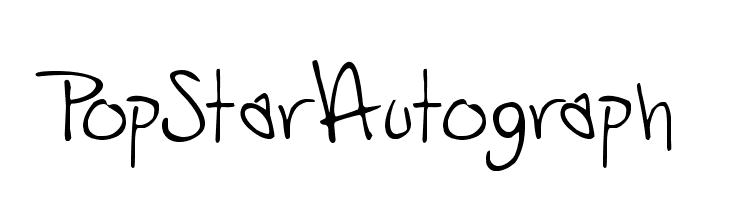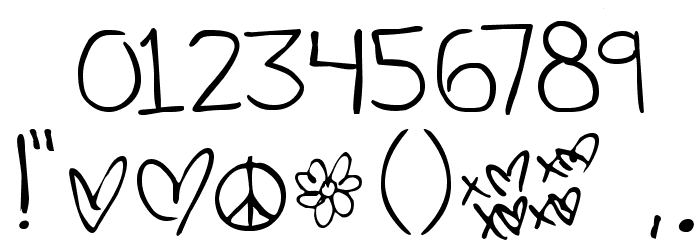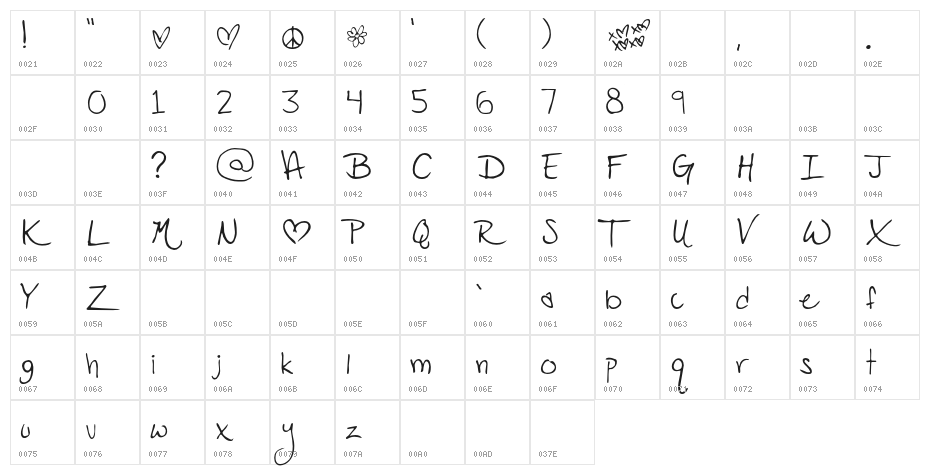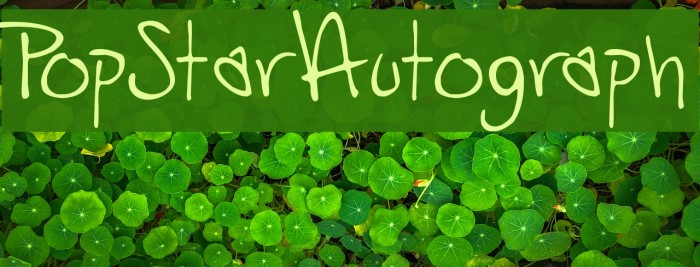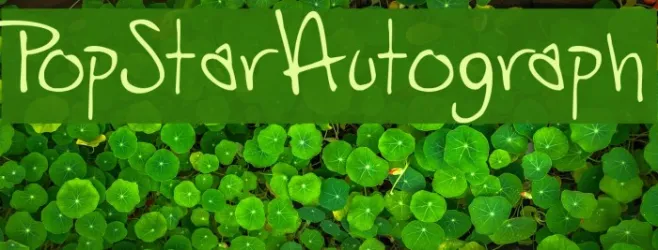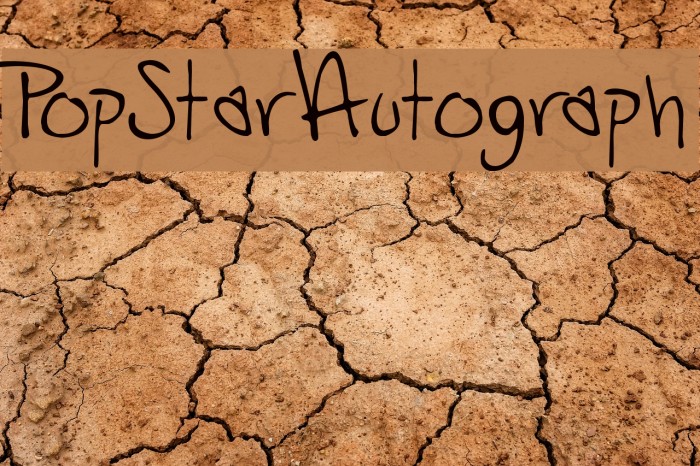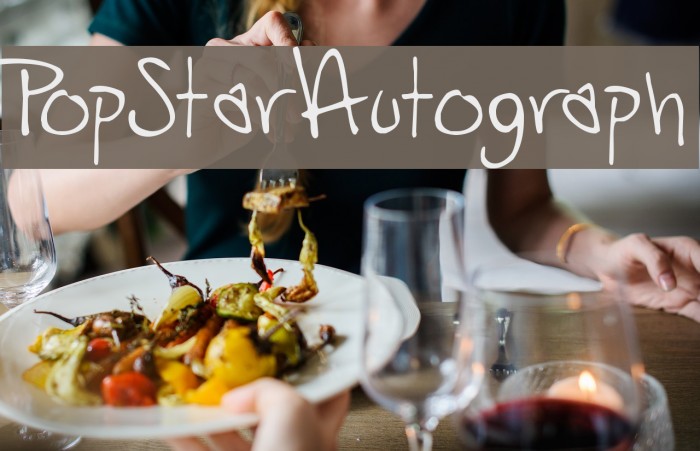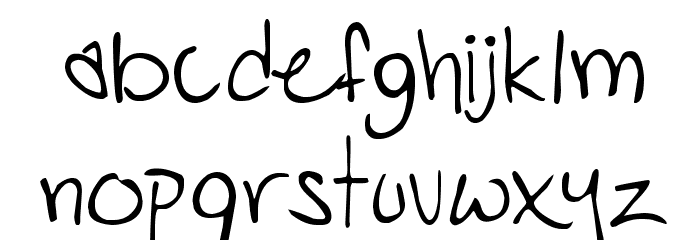
PopStarAutograph Font
PopStarAutograph Description
This playful and energetic font captures the essence of a lively autograph style, reminiscent of a pop star's signature. The characters are fluid and dynamic, with a handwritten feel that exudes personality and flair. Uppercase letters are bold and slightly irregular, adding to the casual and spontaneous vibe. Lowercase letters maintain a consistent flow, enhancing readability while retaining the whimsical nature. Numbers are clear and distinct, matching the overall style. Special characters, including hearts and peace signs, add a fun and decorative touch, making this font perfect for creative projects.
| Proposed Projects | Ideal for greeting cards, posters, social media graphics, and any project requiring a personal and lively touch. |